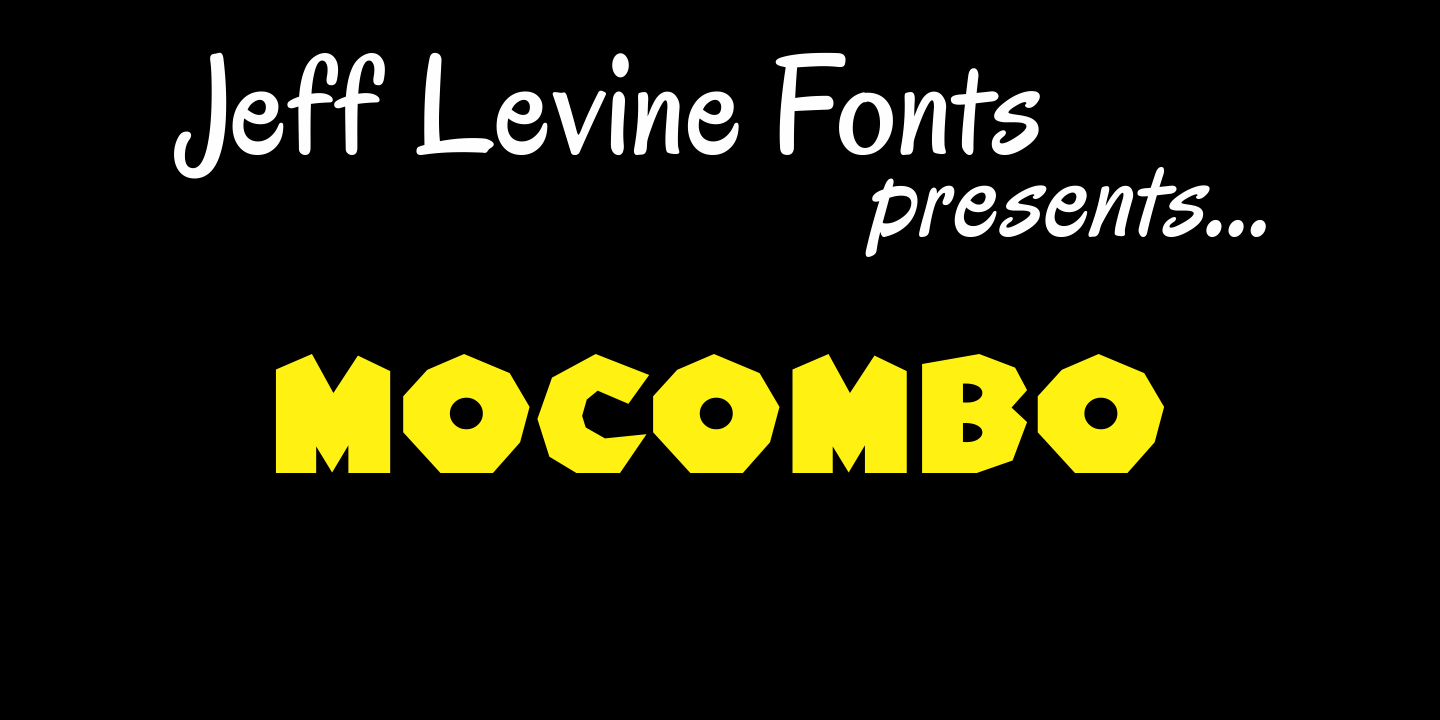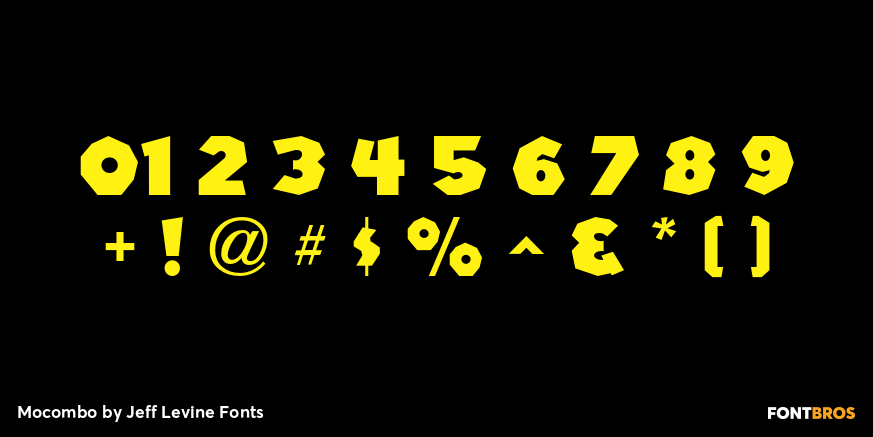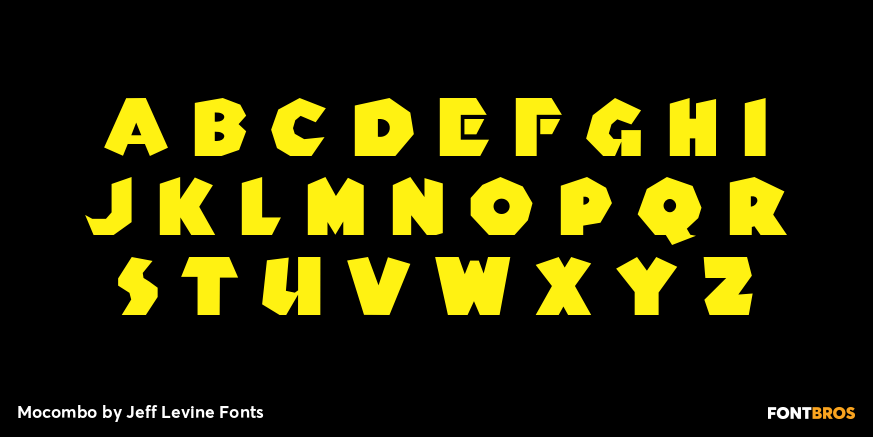
Mocombo
Mocombo JNL is a slightly modified version of one of the numerous alphabets created by the late Alf R. Becker for Signs of the Times Magazine during the period of the 1930s through the 1950s. Tod Swormstedt of ST Media – who is also the curator of the American Sign Museum in Cincinnati, Ohio – supplied Jeff Levine a wealth of source material from which this font is derived.
The angular style of this typeface was originally referred to as "German poster Lettering" by Becker, but it can represent many styles from 1940s night clubs to African safaris and just about anything in-between.